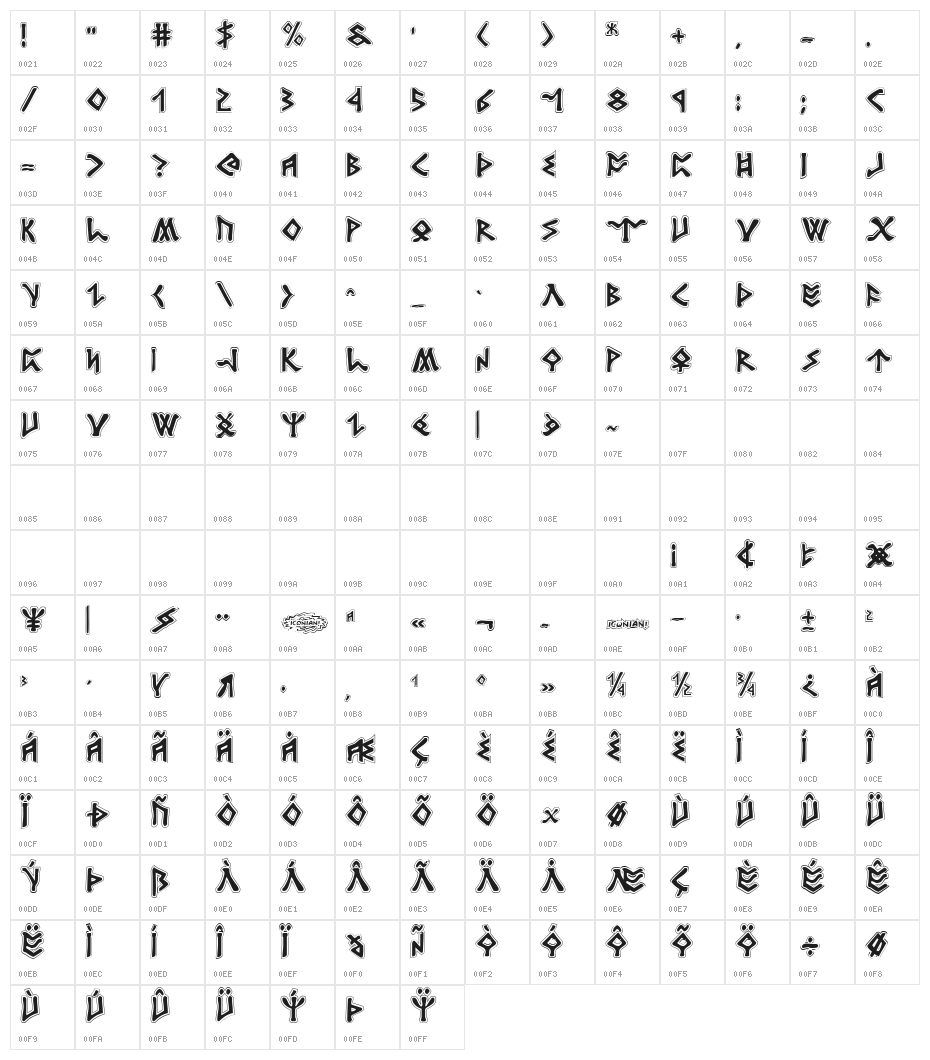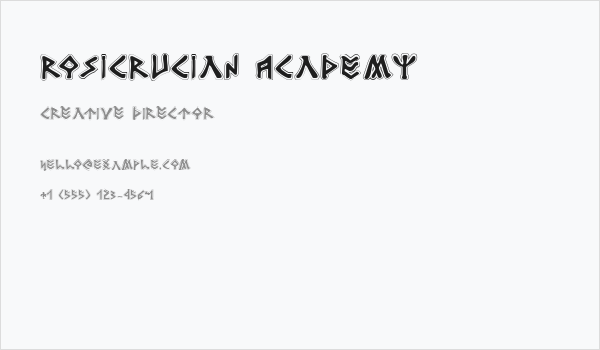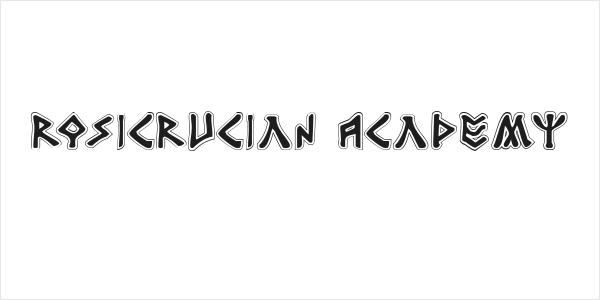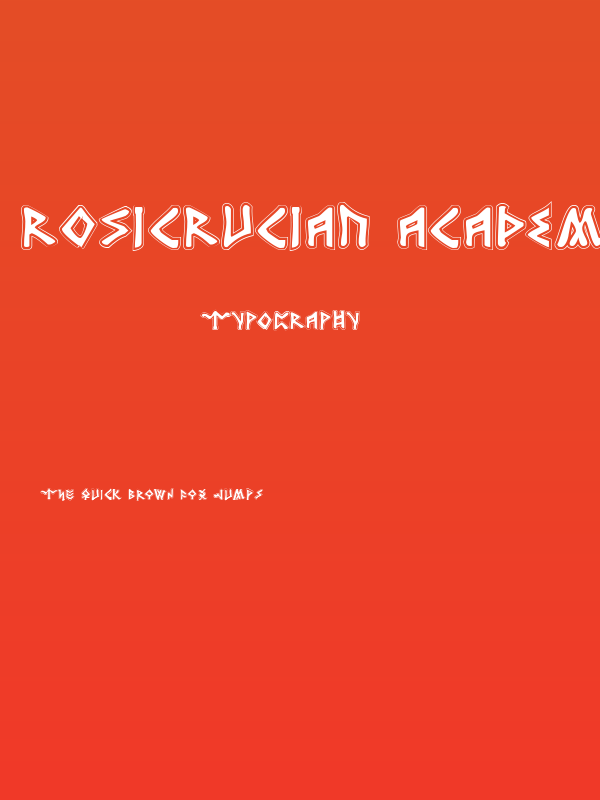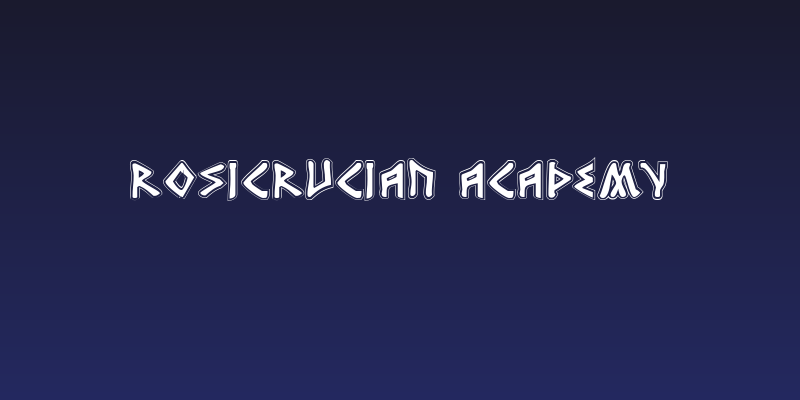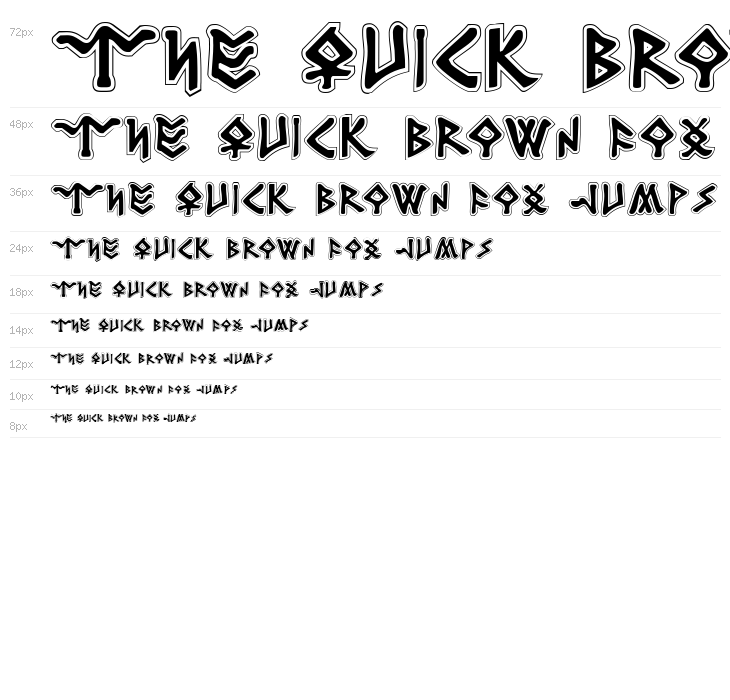
Rosicrucian Academy Font
Rosicrucian Academy Description
This font features a bold and striking design with a distinct outline that gives each character a three-dimensional appearance. The angular and geometric shapes create a futuristic and edgy look, while the consistent thickness of the strokes adds a sense of stability and strength. The uppercase and lowercase letters maintain a uniform style, with unique elements such as sharp edges and pointed tips that enhance the overall aesthetic. The numerals and special characters follow the same design principles, ensuring a cohesive and harmonious appearance across all glyphs. This font is ideal for projects that require a modern and dynamic feel.
| Overall Style | Futuristic, Edgy |
| Proposed Projects | Ideal for sci-fi themed designs, video game titles, posters, and branding that requires a modern and dynamic look. |